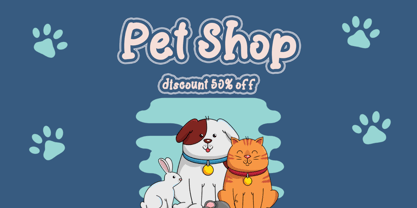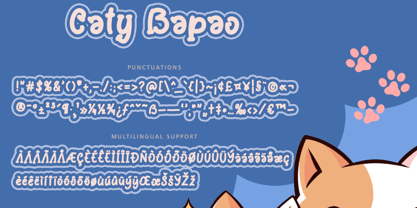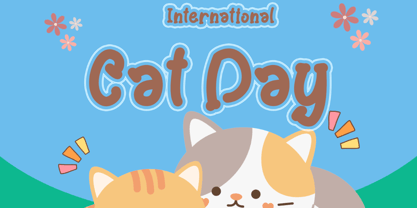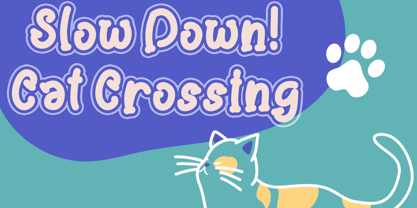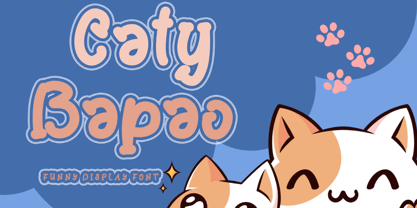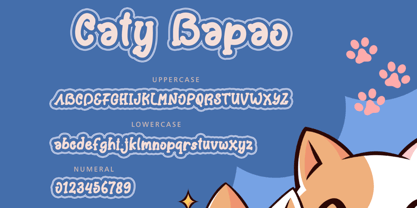
Caty Bapao
by Yoga Letter
The Caty Bapao Font Family was designed by Isroni Yoga Prasetya and published by Yoga Letter. Caty Bapao contains 1 styles. More about this family
"Caty Bapao" is a cute and unique display font. It comes with uppercase, lowercase, numbers, punctuation, and multilingual support. It is perfect for animation, cartoon, comic, christmas, banner, winter, birthday, sticker, logo, game, branding, poster, thanksgiving, international cat day, etc.
Designers: Isroni Yoga Prasetya
Foundry: Yoga Letter
Caty Bapao